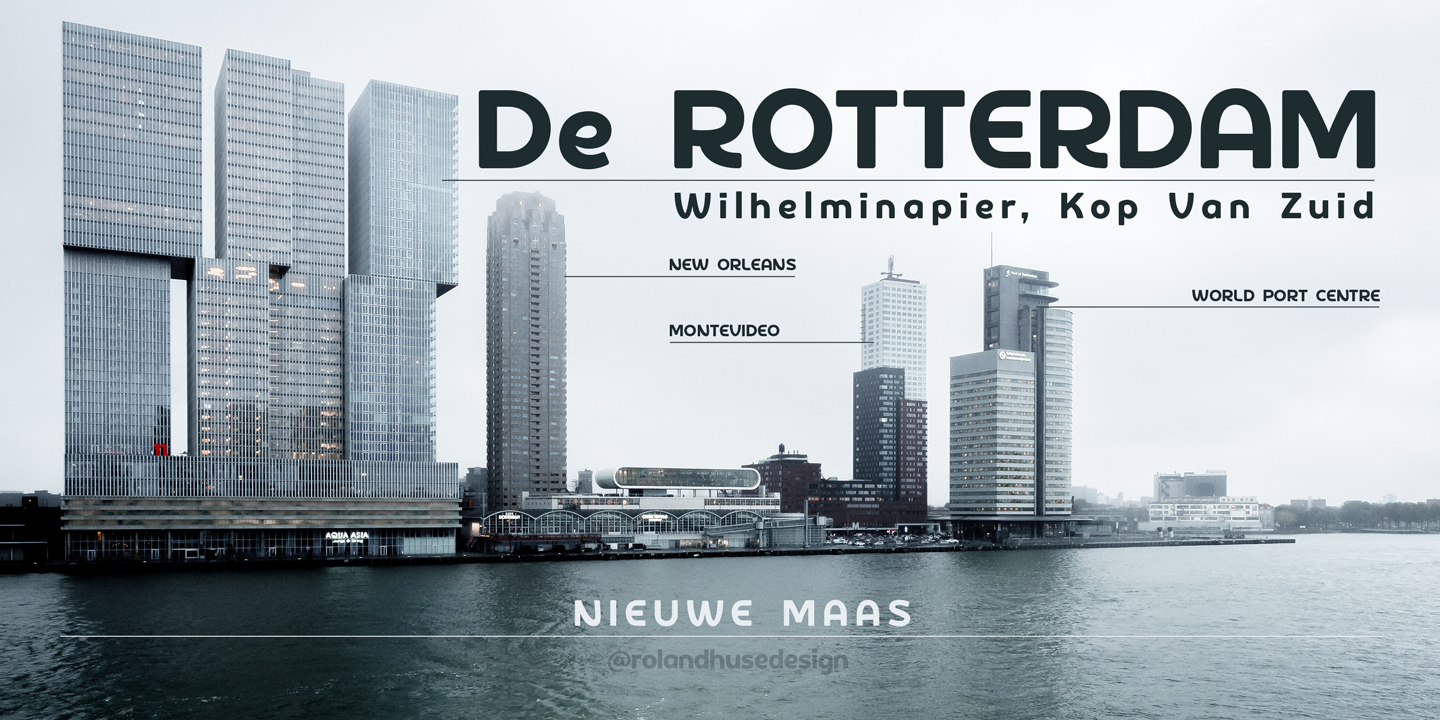
De Rotterdam Font is perfect for international shipping companies, port authority branding, Dutch cultural organizations, maritime trade communications, European logistics firms, harbor-front developments, modern architectural projects, continental business materials, and any project requiring typography with industrial port sophistication and contemporary Dutch design aesthetics.
What makes De Rotterdam Font exciting is its industrial elegance that captures the dynamic energy and international character of Europe's largest port with letterforms that embody the efficiency and modern sophistication of global maritime commerce. This distinctive typeface reflects the innovative spirit of Dutch design with clean geometric construction that mirrors the organized complexity of container terminals and the streamlined efficiency of modern shipping infrastructure. The font's international character and port sophistication make it perfect for brands operating in global trade, logistics, and the interconnected world of modern commerce.
The De Rotterdam Font family includes light, regular, and bold weights, featuring complete uppercase and lowercase alphabets, numerals, punctuation marks, and industrial design elements. The font maintains consistent port elegance throughout all weights while ensuring excellent readability for both commanding headlines and detailed logistics documentation in international business and maritime contexts.
Whether you're designing for shipping corporations, creating port development materials, or developing international trade branding with Dutch industrial aesthetics, De Rotterdam Font Free Download delivers unmatched commercial sophistication and port authority to your projects. This exceptional typeface transforms ordinary text into powerful expressions of global commerce that celebrate the efficiency, innovation, and international connectivity of modern port operations. The font's industrial character makes it ideal for logistics companies, shipping firms, and international trade organizations. Download this remarkable font today and bring the commanding presence of port sophistication to your design projects with authentic Dutch industrial elegance and Rotterdam commercial excellence.